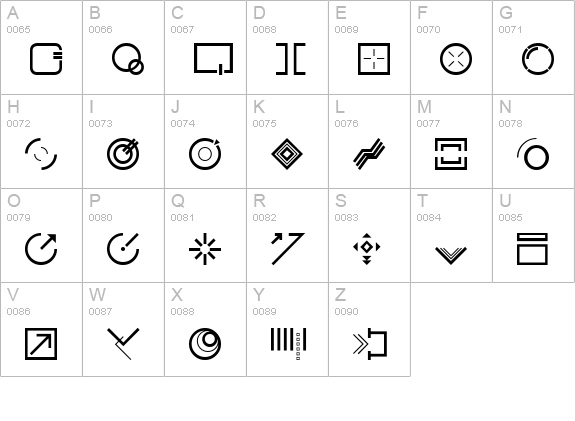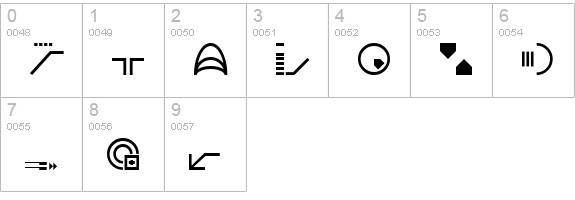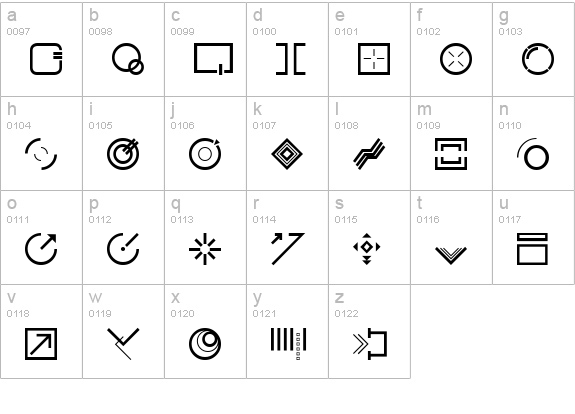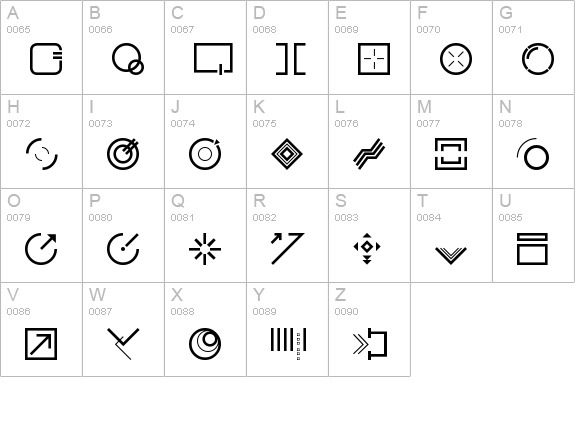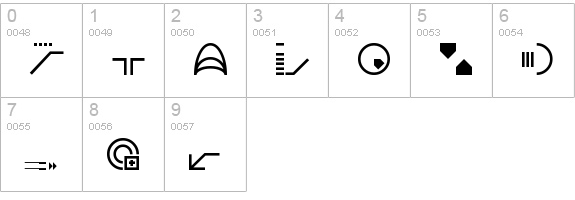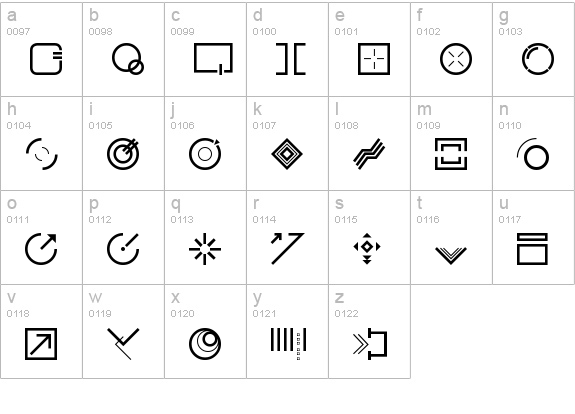
StyleBats CleanCut Font Details
StyleBats CleanCut is a modern and sleek font that exudes sophistication and elegance. Its clean lines and sharp edges give it a polished and professional look, making it perfect for a variety of design projects. This versatile font is suitable for both headings and body text, adding a touch of refinement to any layout. And the best part? StyleBats CleanCut is available for free download at FontsMarket.com! Whether you're working on a website, a brochure, or any other design project, this font will elevate your work to the next level. Don't miss out on the opportunity to add this stylish and contemporary font to your collection today.